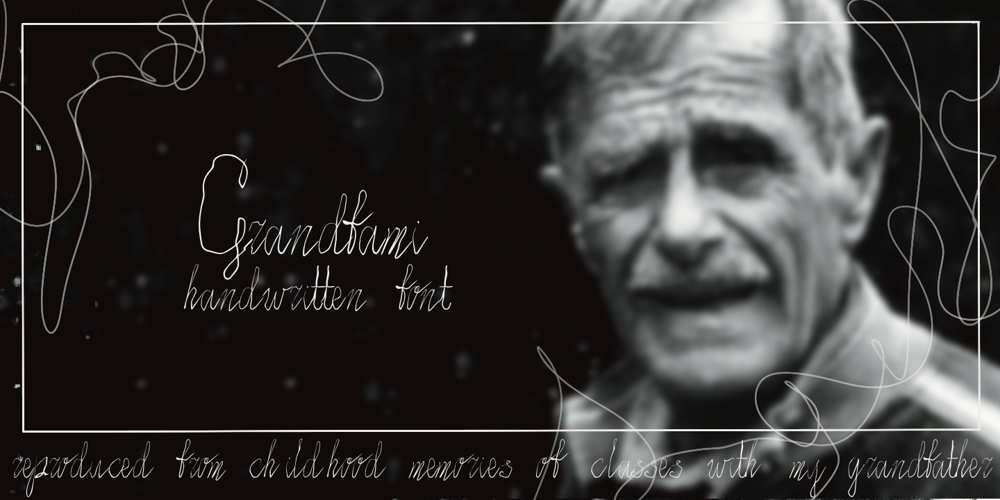
Grandfami Font Family was designed by Uliana Shabanova and published by UlianaShabanova. Grandfami contains 1 styles and family package options. Welcome to the new font!An elegant slim handwritten font created from childhood memory. This is how my grandfather wrote.He seemed very beautiful to me when he was little and I really wanted to write “when I grow up” too:)Perfect for captions in photo albums, on photos, birthday invitations, calendars, magazines, Instagram posts and more!A vector font is composed of uppercase and lowercase letters.Feel free to email meshabanovasprt@gmail.com if you have any questions. 🙂